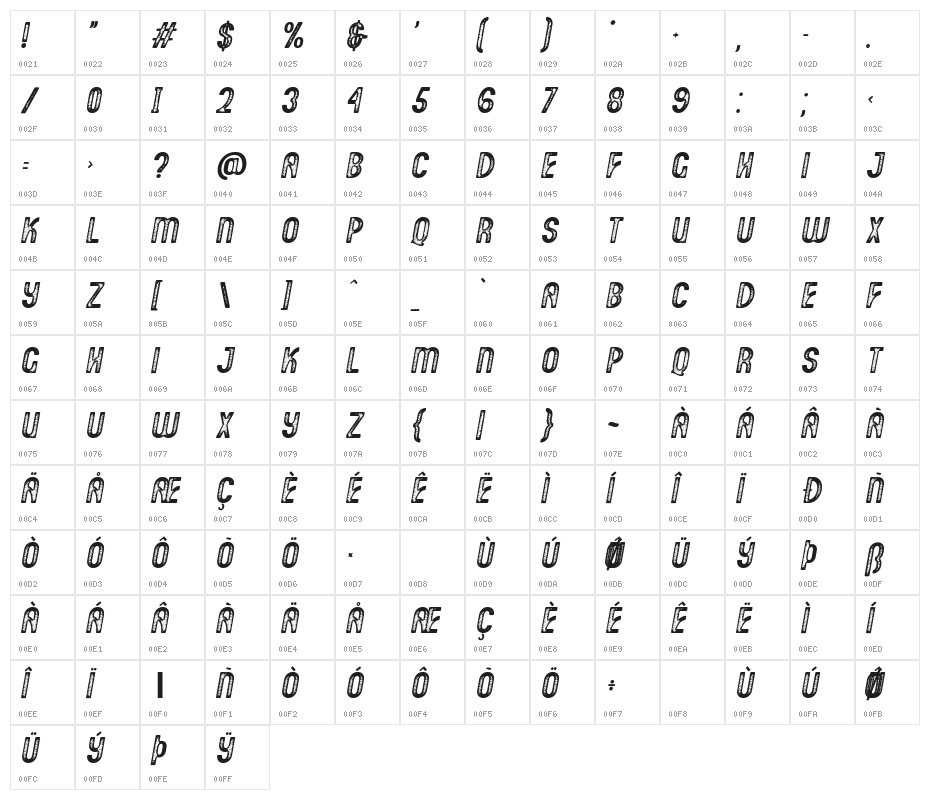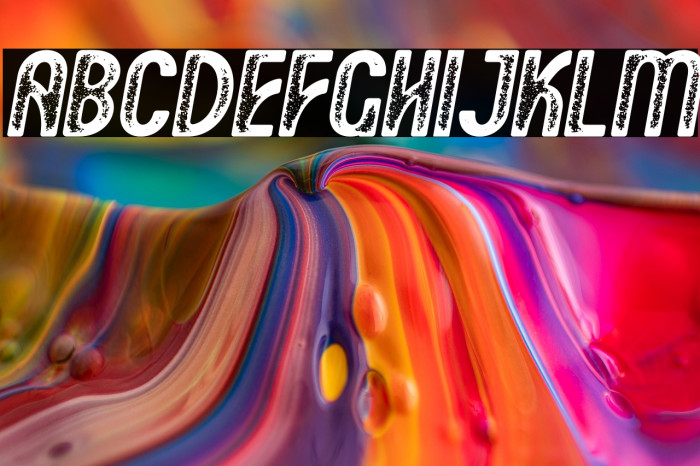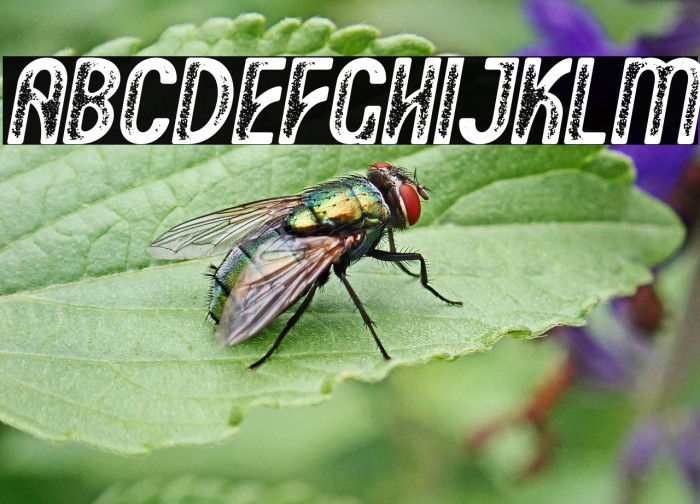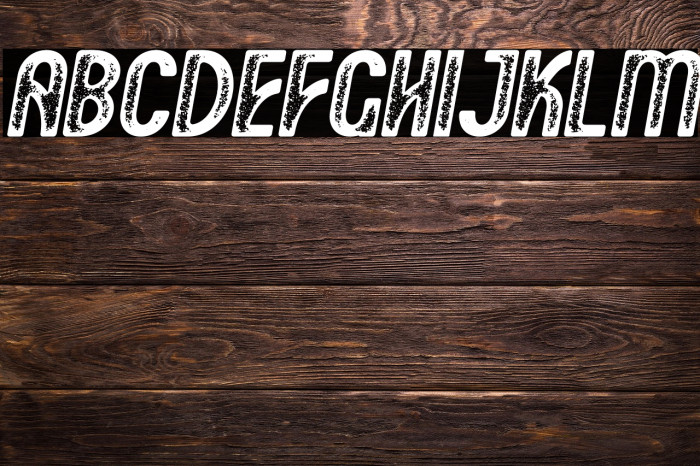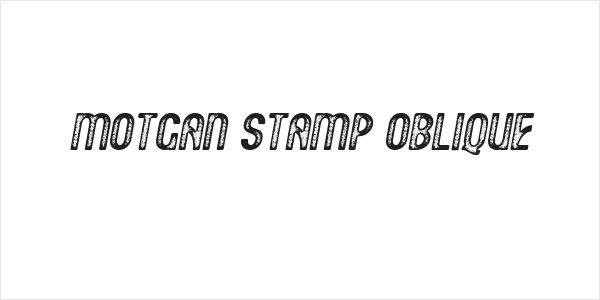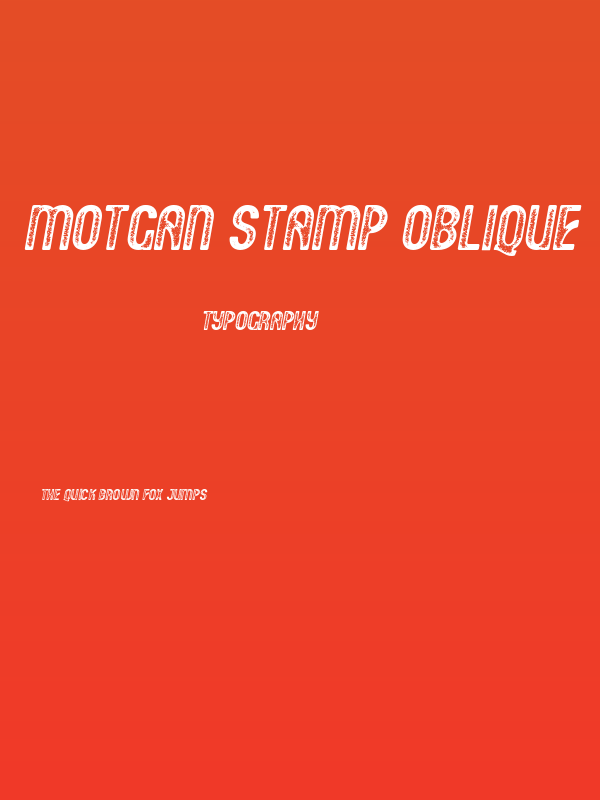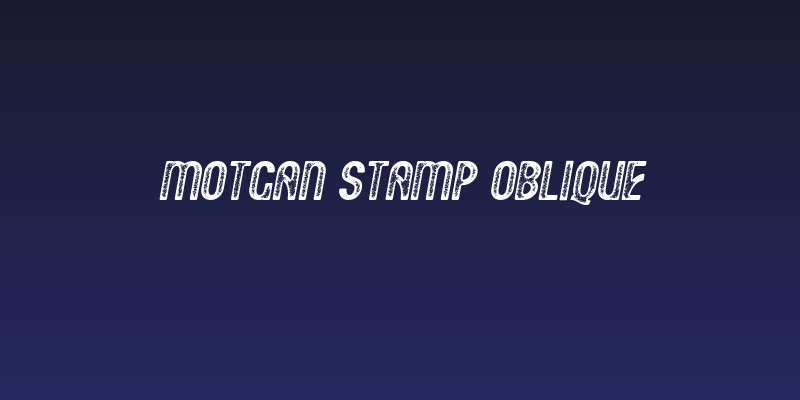
Motgan Stamp Oblique Font
Motgan Stamp Oblique Description
This font features a bold, distressed style with a textured, stamp-like appearance. The characters are oblique, giving them a dynamic, forward-leaning posture. The texture adds a rugged, vintage feel, reminiscent of old printing techniques. Each letter is distinct, with a slightly uneven surface that enhances its handcrafted look. The font maintains a consistent weight throughout, ensuring readability while still offering a unique visual appeal. Its boldness and texture make it stand out, ideal for projects that require a strong, impactful presence.
| Proposed Projects | Ideal for branding, posters, packaging, and any design requiring a vintage or rugged aesthetic. |